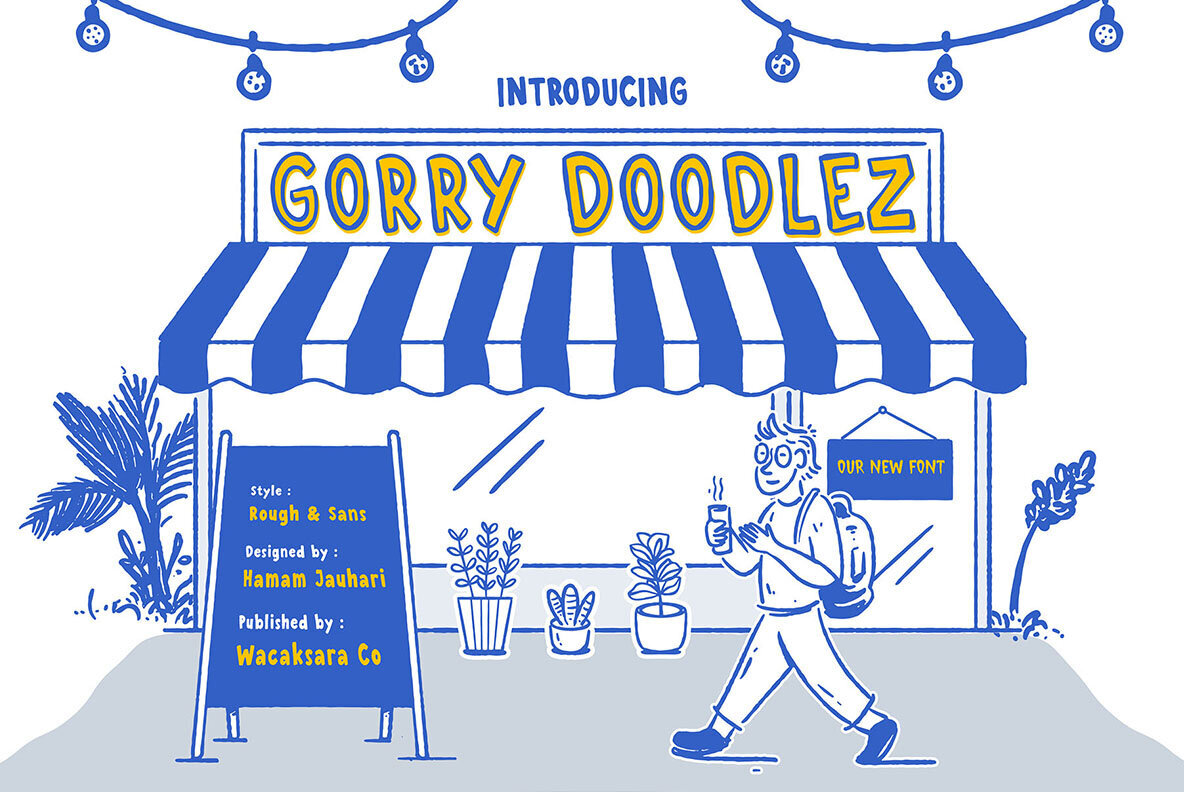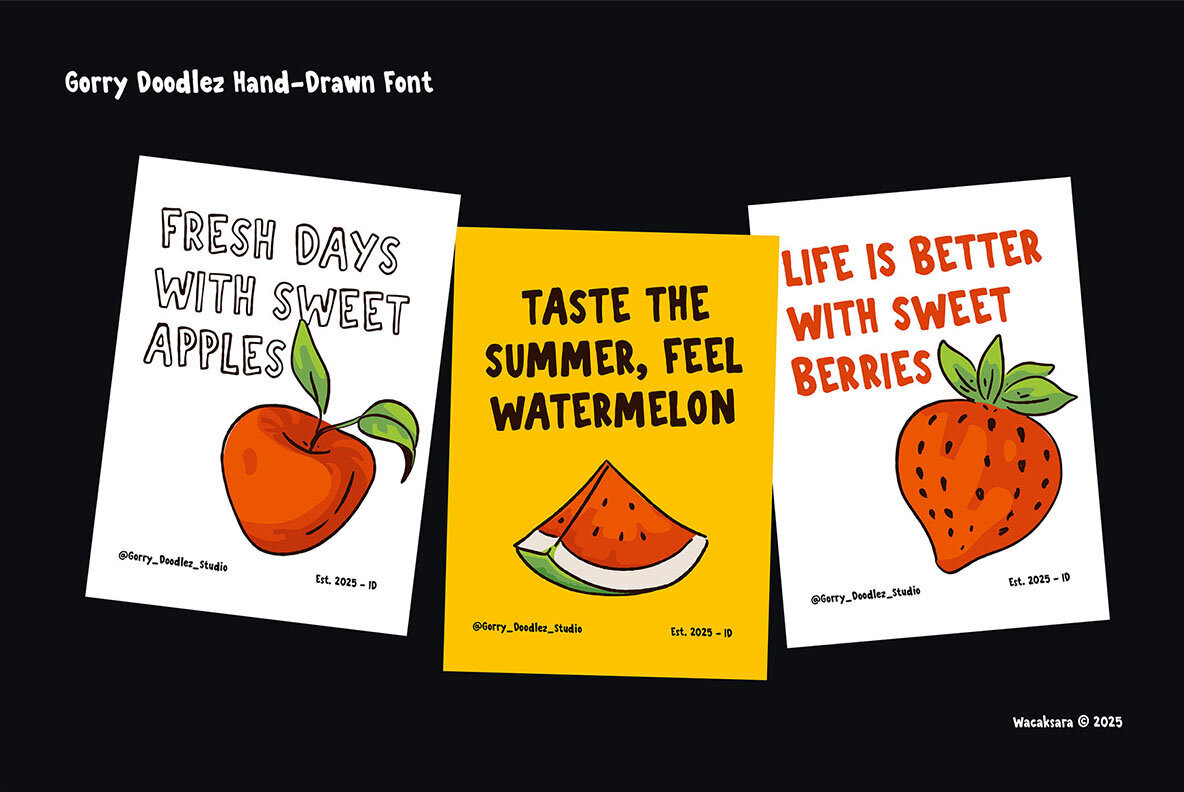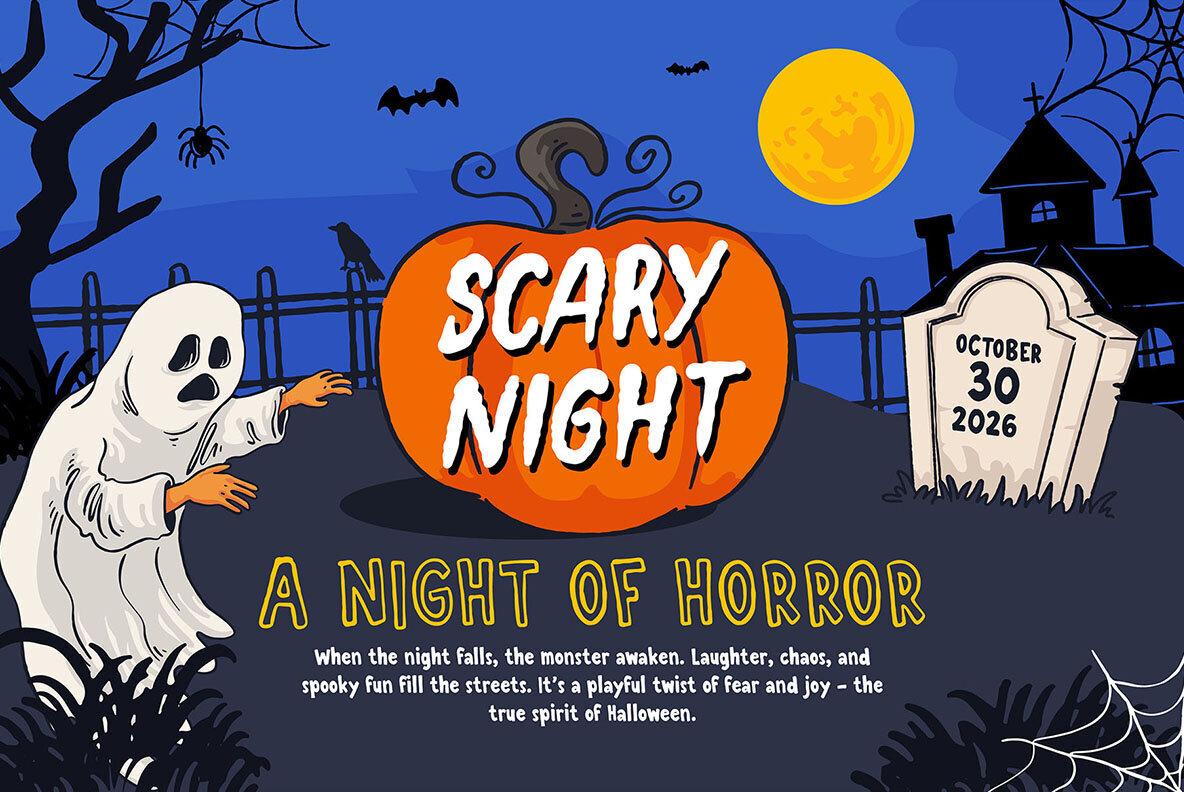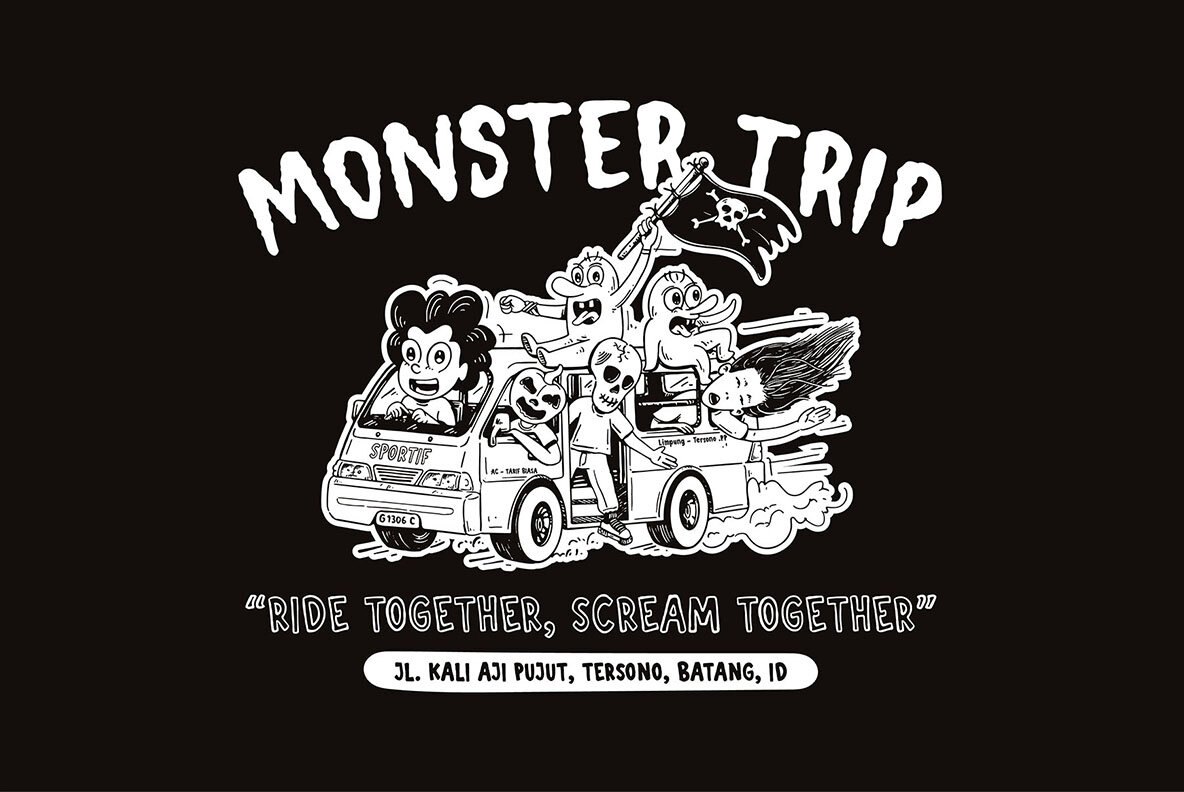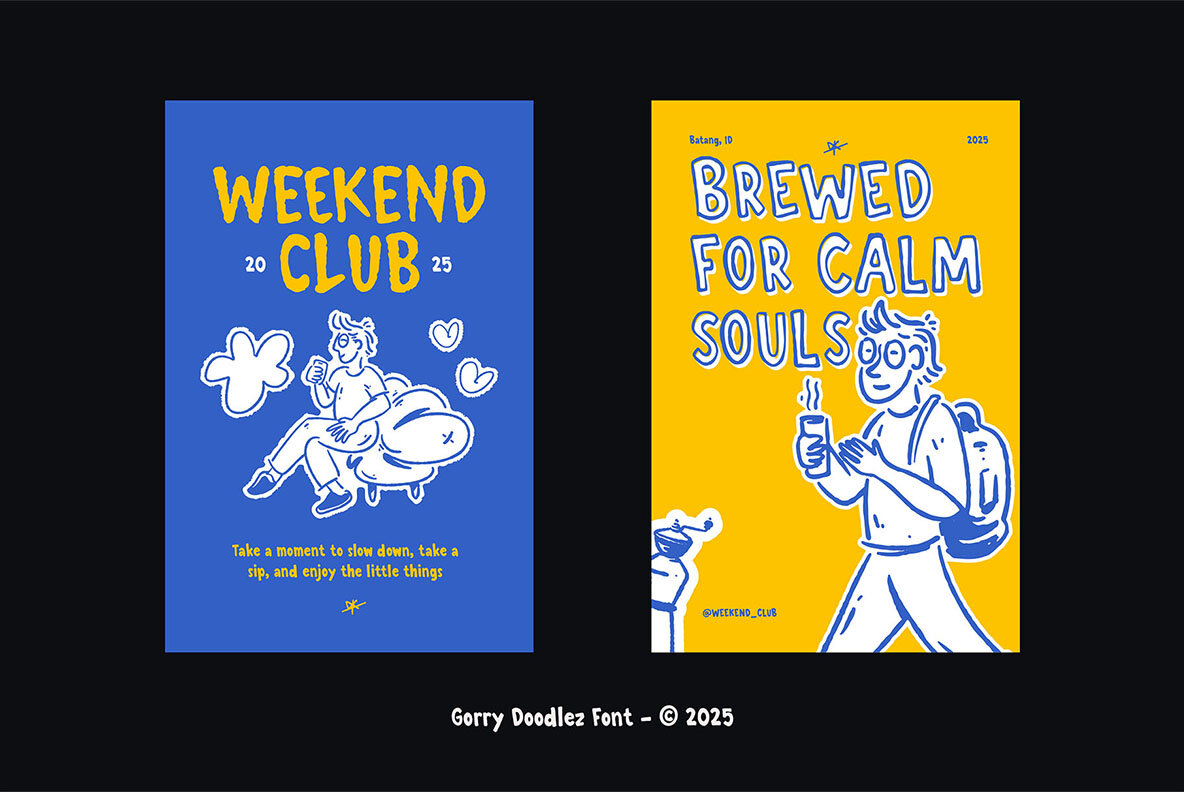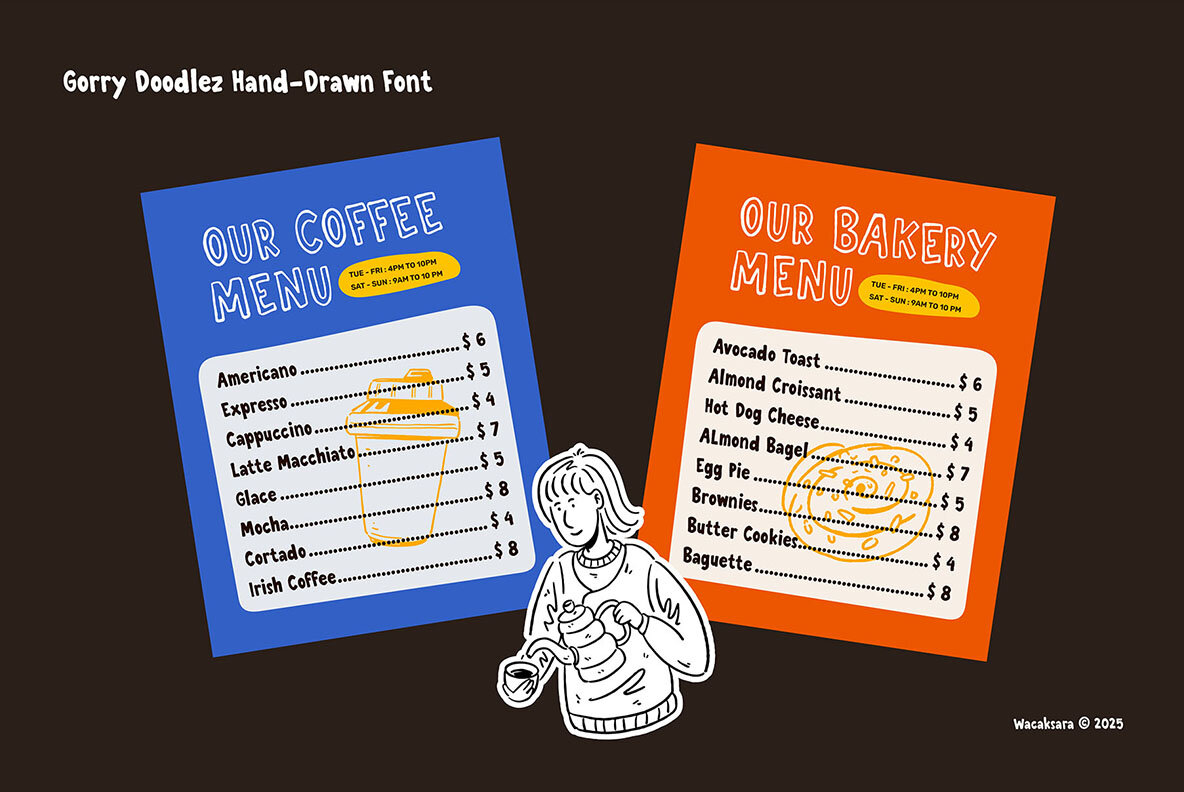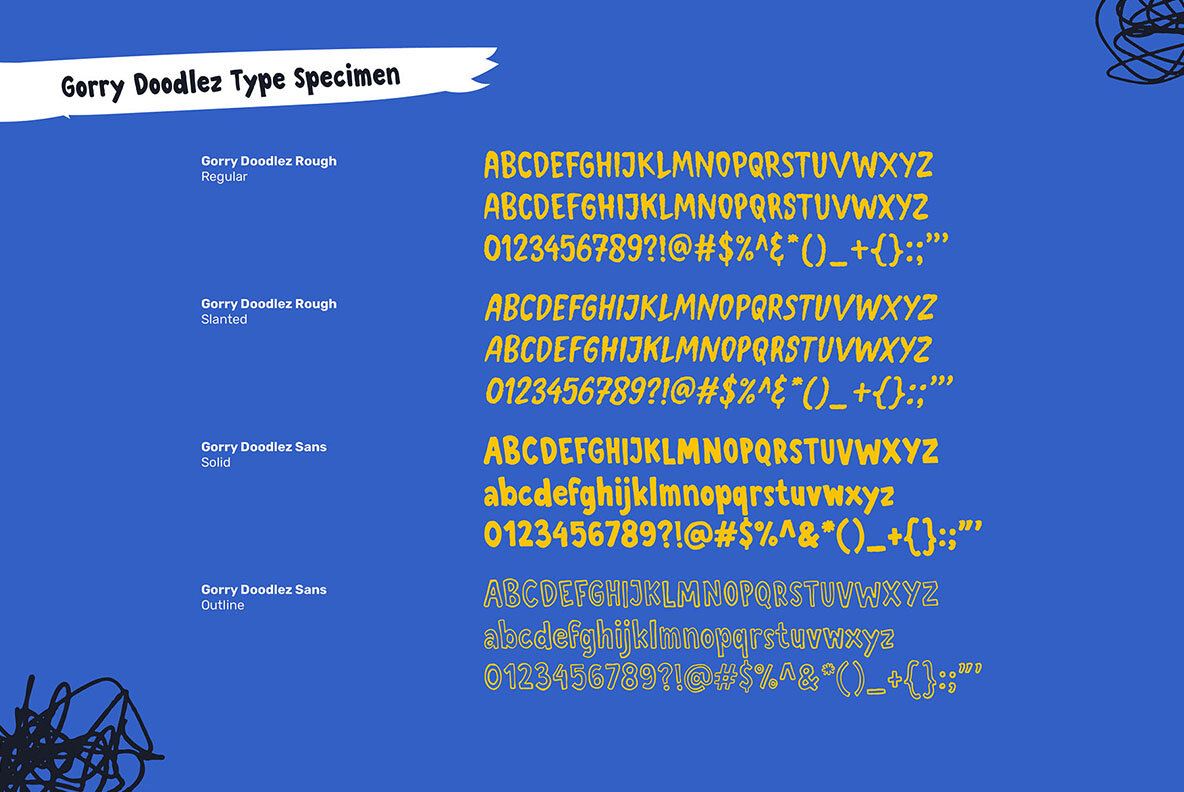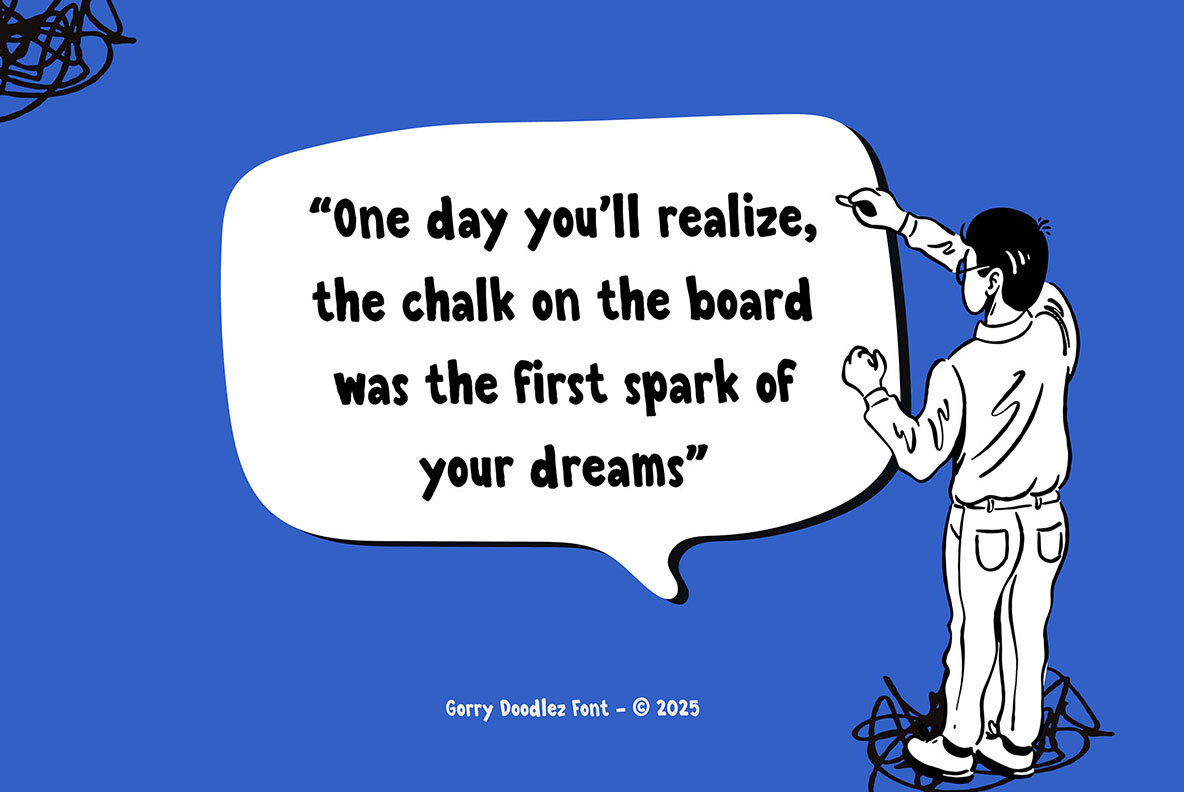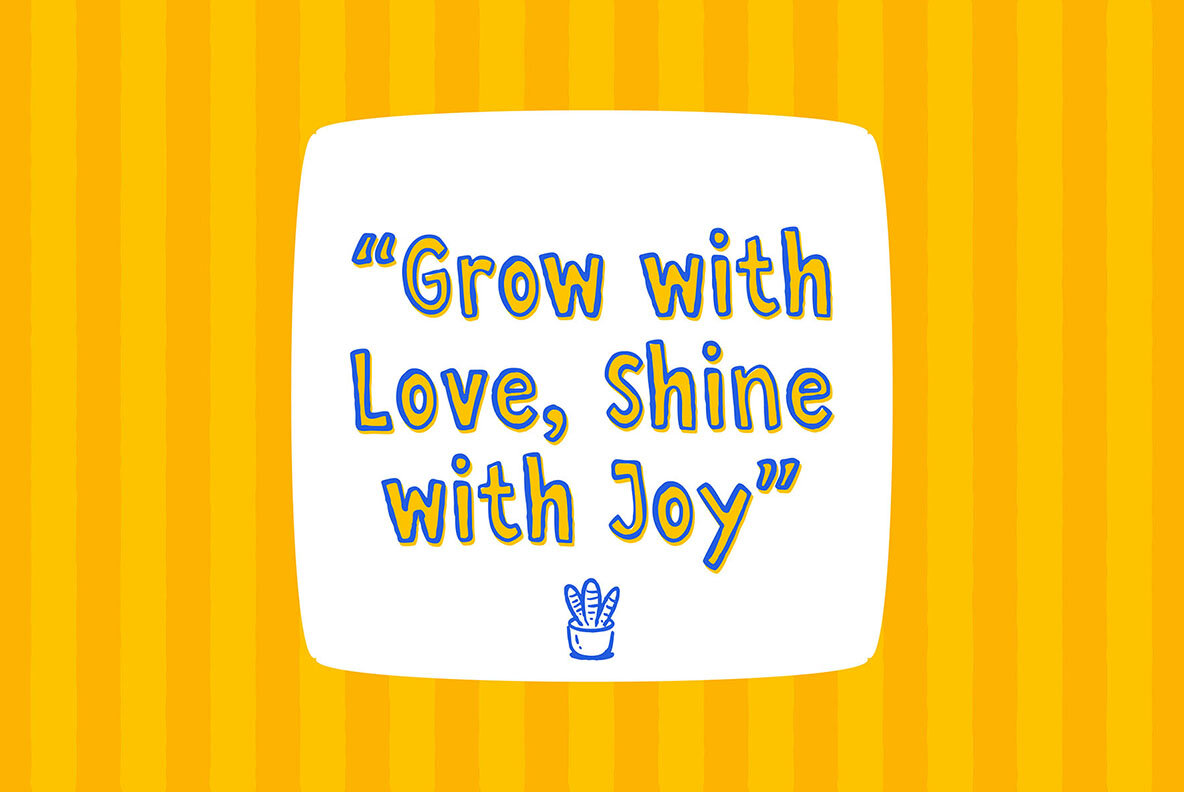
Gorry Doodlez Font
Gorry Doodlez Rough
Gorry Doodlez Rough Slanted
Gorry Doodlez Sans Outline
Gorry Doodlez Sans Solid
Add a cheerful, organic flair to your designs with Gorry Doodlez, a hand-drawn typeface bursting with personality. This font embodies a doodly charm, making each project feel approachable and lively. Gorry Doodlez stands out in children's books, playful posters, packaging, and more. Its friendly style is perfect for logo design, creative branding, menus, and inspirational quotes, imbibing every project with warmth and charisma. Features:Gorry Doodlez: Playful Hand-Drawn Font
Each letter in Gorry Doodlez is crafted with care to ensure your designs exude a handmade, character-rich vibe. Enjoy the flexibility and charm of this unique display font.